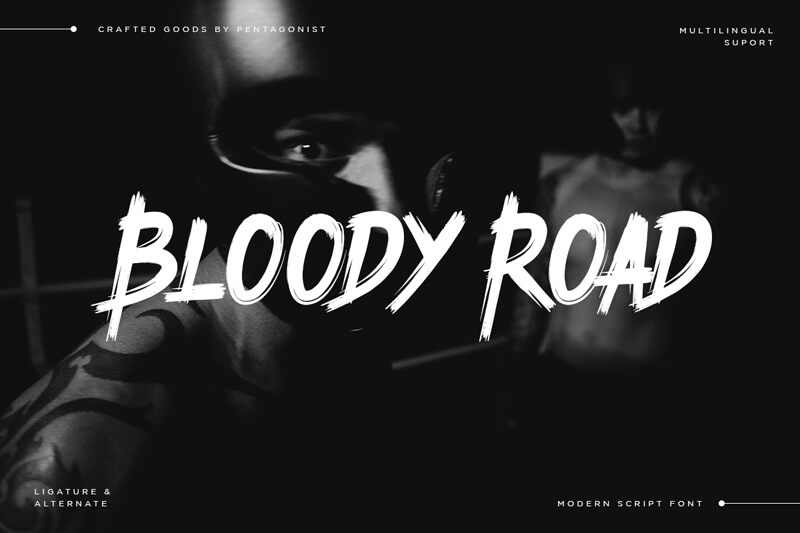
Bloody Road font is a natural brush typeface by Pentagonistudio with an aggressive, expressive, and edgy look. This grunge free handwritten font contains all the letters of the English language in uppercase format with no lowercase characters in its repertoire. Bloody Road carries an urban vibe with it that simply cannot be ignored. It gives out both a modern appeal and one of positivity and free spirit.
Examples of uses for this beautiful font range include business cards, custom t-shirts, mugs & cups, labels designs, social media posts and covers, backgrounds (like card backgrounds), typography artwork…